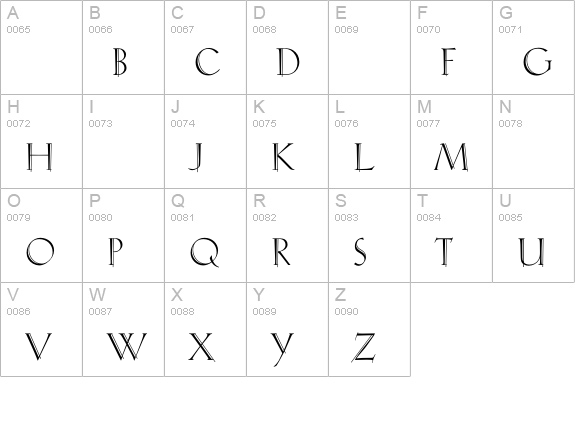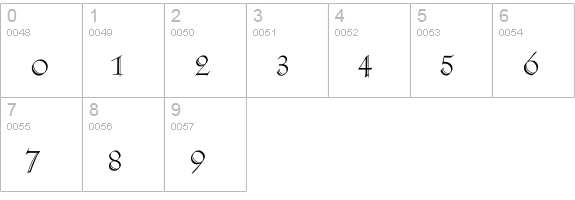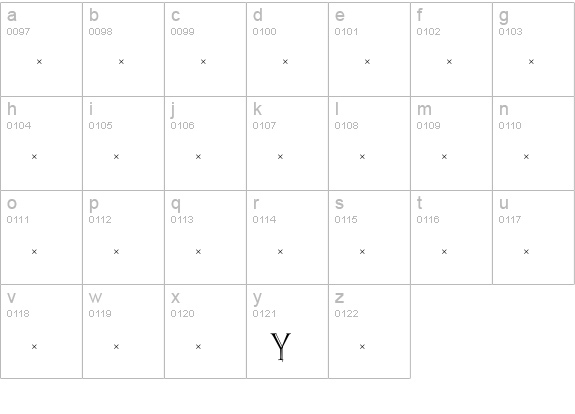
RivoliInitials Font Details
RivoliInitials font is a stunning display typeface that exudes elegance and sophistication. With its intricate details and ornate design, RivoliInitials is perfect for adding a touch of luxury to your projects. Each letter is meticulously crafted to create a unique and eye-catching look that will captivate your audience. This exquisite font is ideal for special occasions, invitations, branding, and more. Whether you are looking to create a sophisticated logo or elegant wedding invitations, RivoliInitials is sure to make a lasting impression. Best of all, RivoliInitials font is available for free download at FontsMarket.com, making it easily accessible for all your design needs. Don't miss out on this exceptional font - elevate your projects with RivoliInitials today!